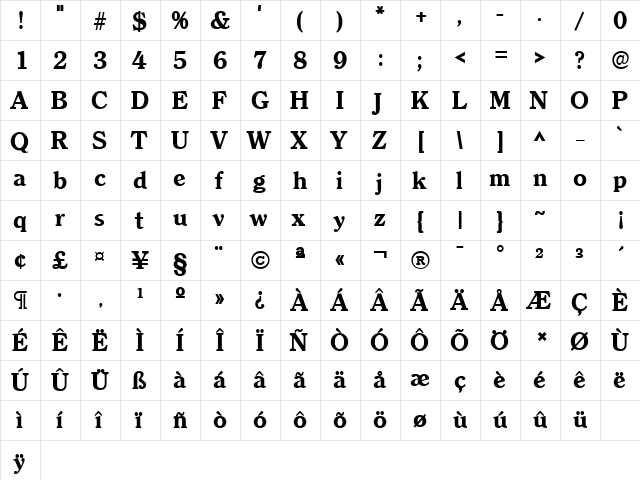
ClearfaceLH Bold
Design Context for ClearfaceLH Typeface
ClearfaceLH takes a measured approach to typography — its balanced proportions and neutral character make it a reliable workhorse for both digital and print work. The heavy weight commands attention and anchors typographic hierarchies.